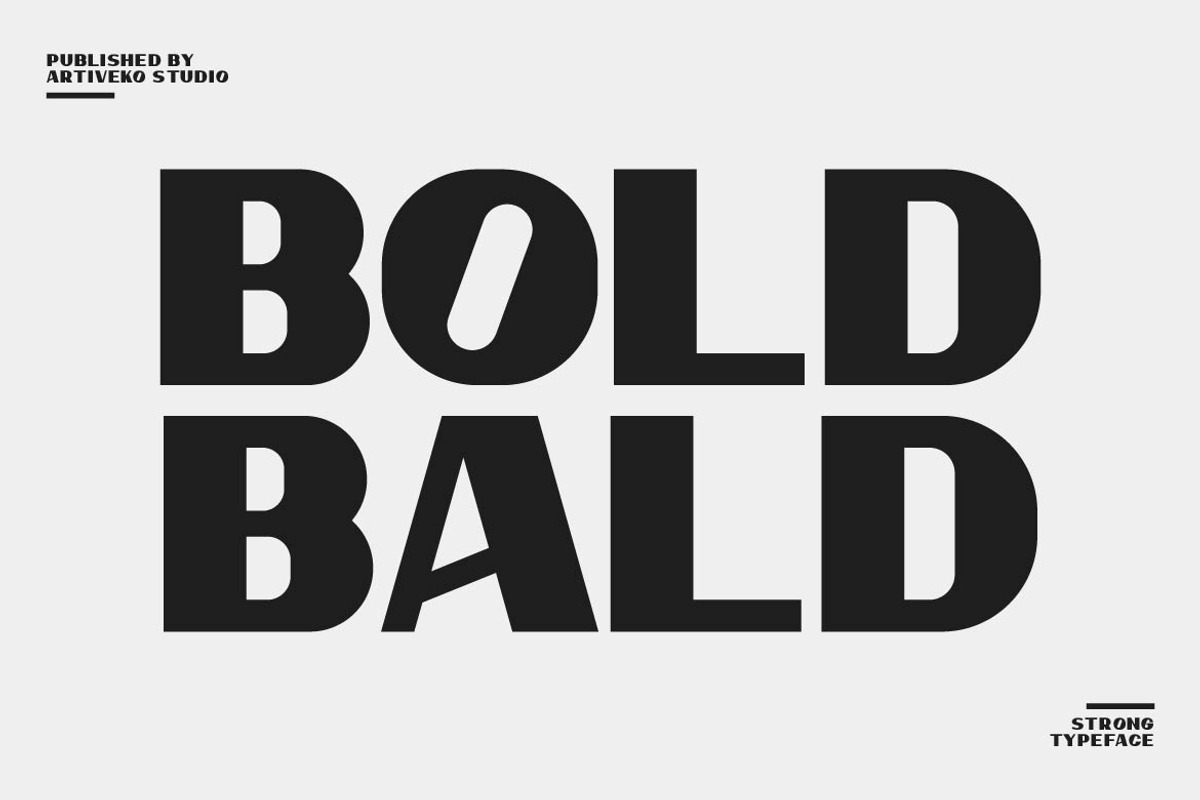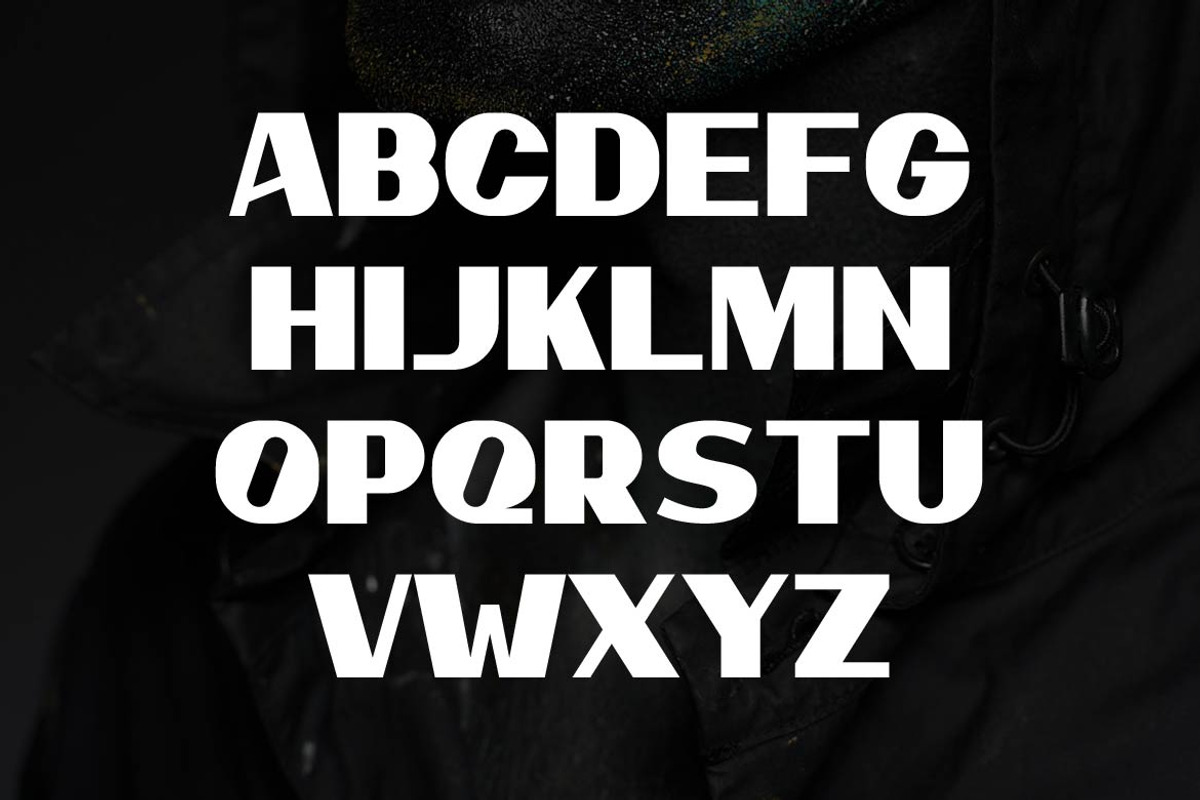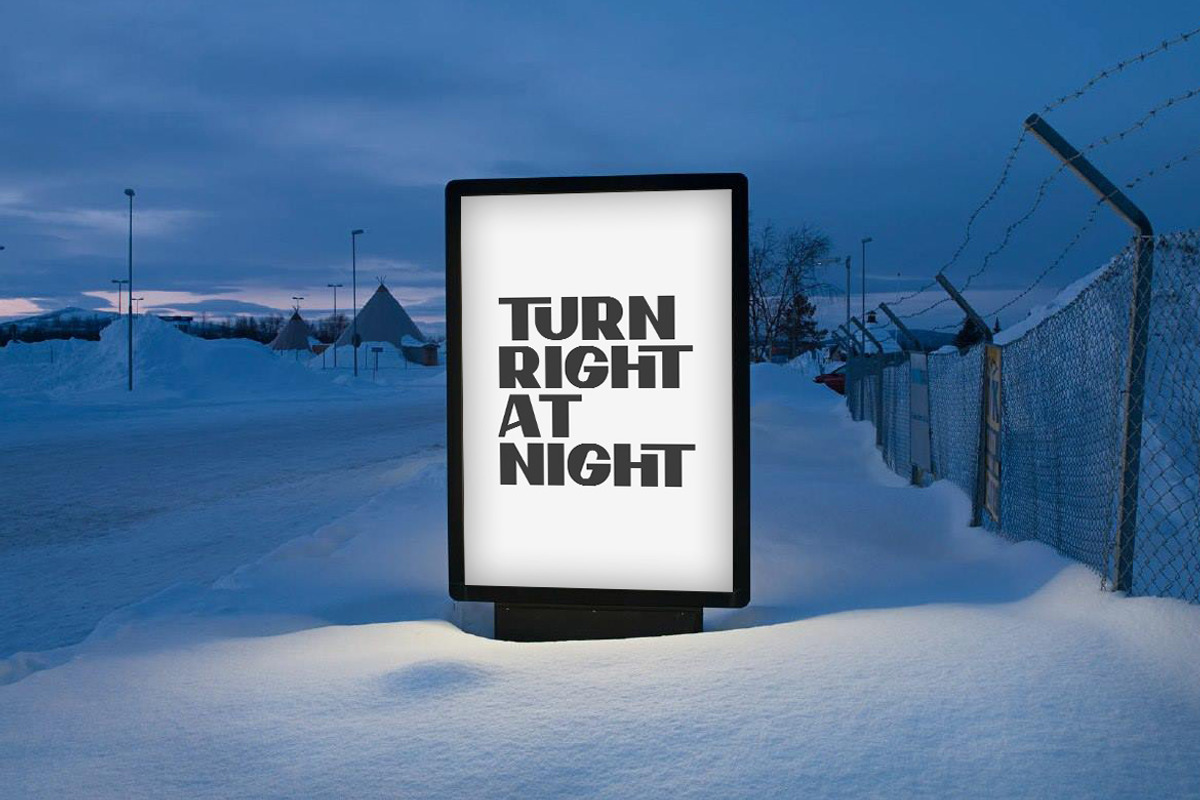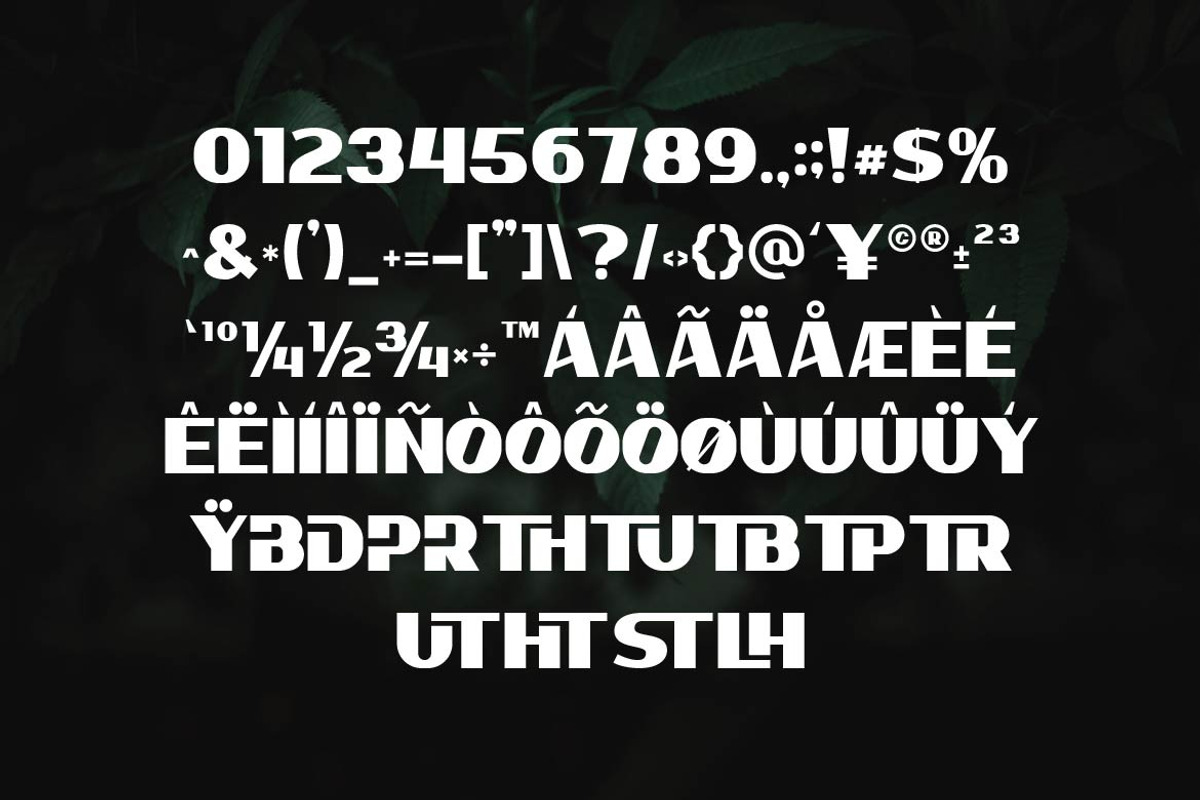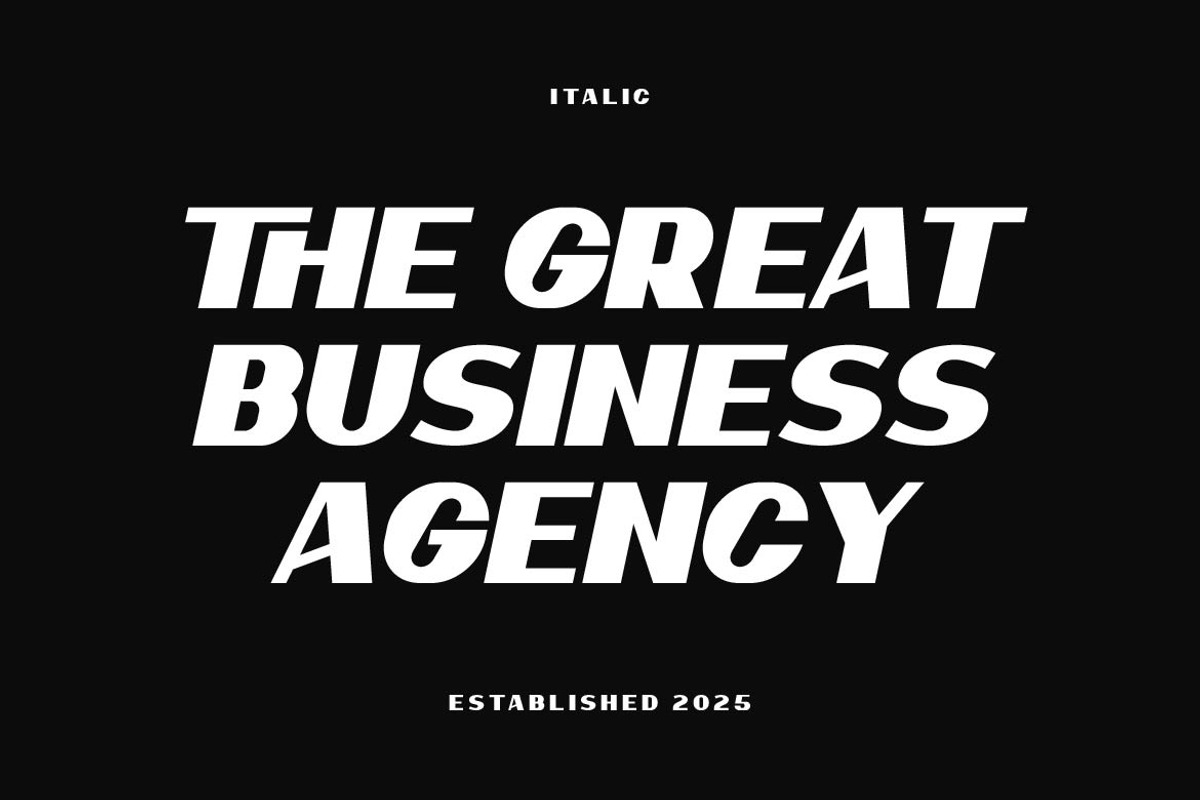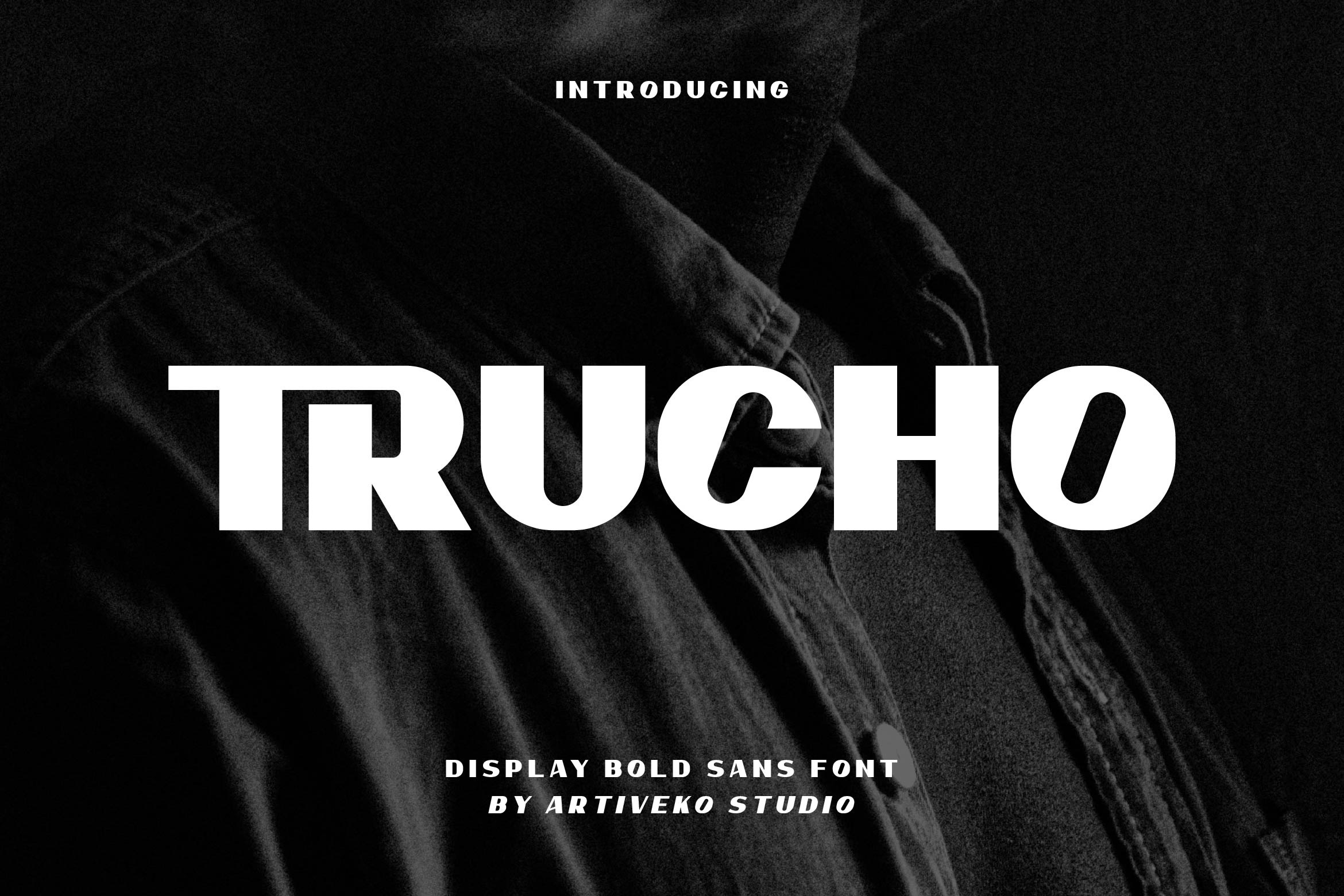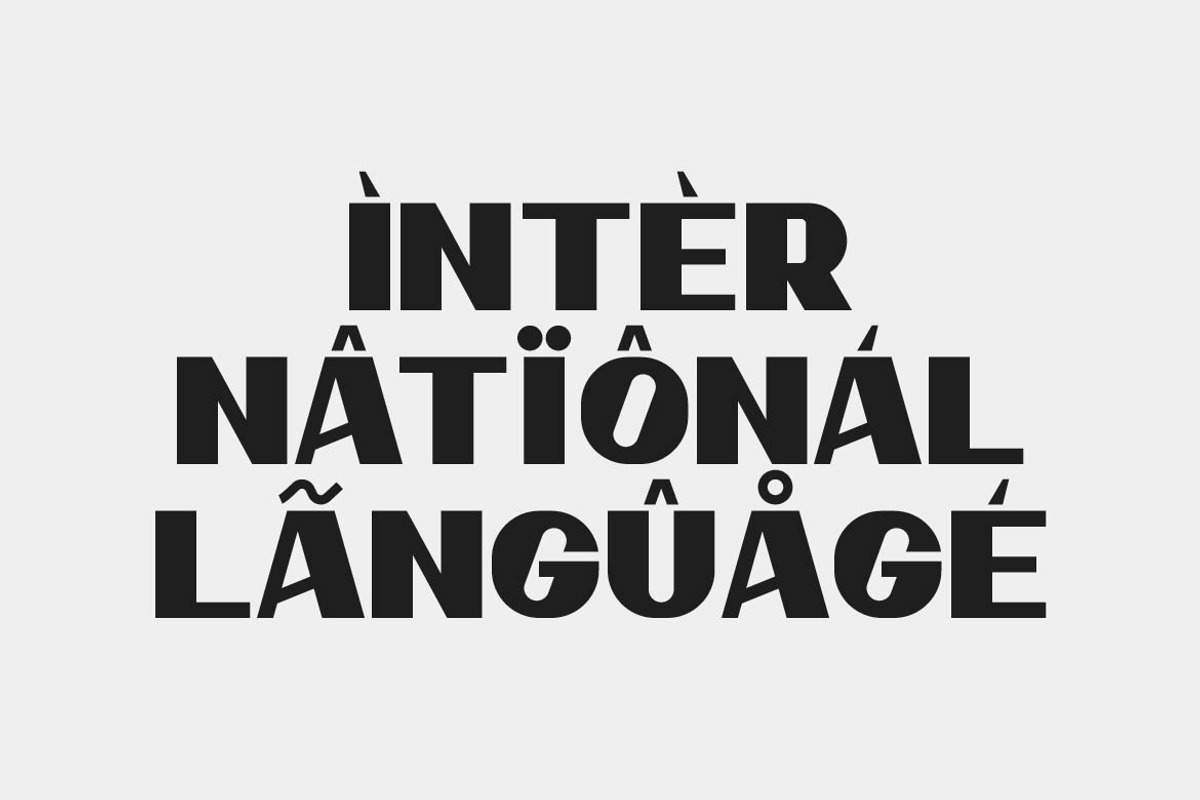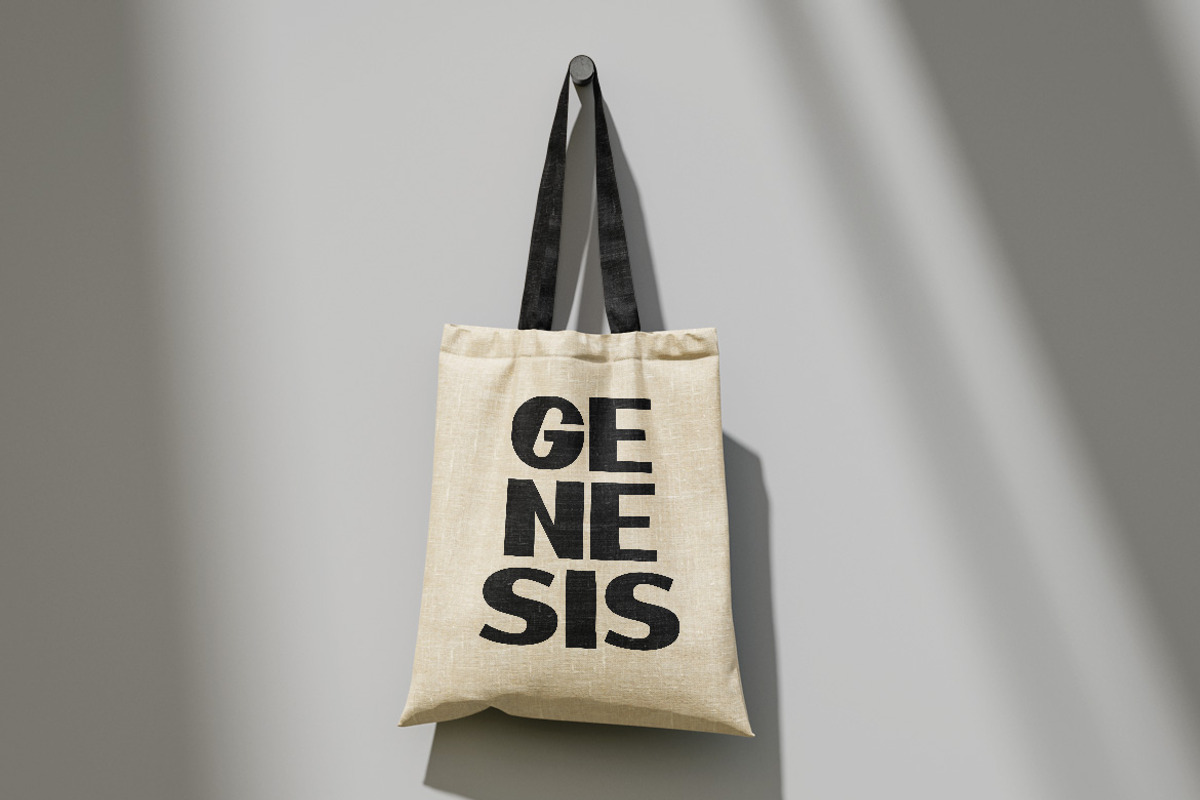
Trucho Bold Sans Font
Trucho is a powerful and modern sans serif font designed to make a lasting impression. With its bold letterforms, clean geometry, and confident structure, Trucho is perfect for impactful logos, attention-grabbing headlines, posters, packaging, and contemporary branding projects that demand strength and clarity.